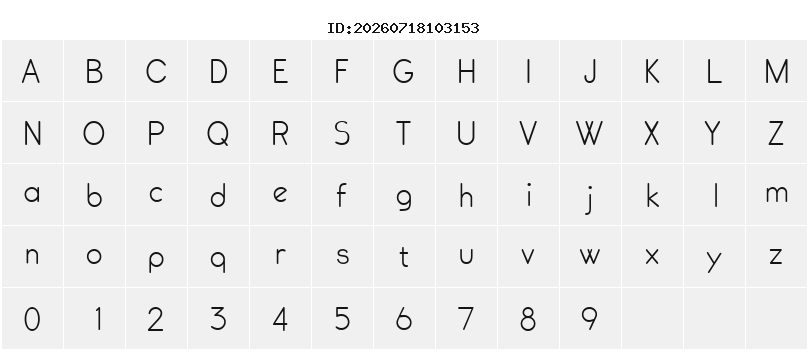
• Font Name: Cennerik
About Cennerik.ttf
Cennerik.ttf is a modern, elegant sans-serif font designed for ultimate readability and visual harmony. Perfect for branding, headlines, web design, and print materials.